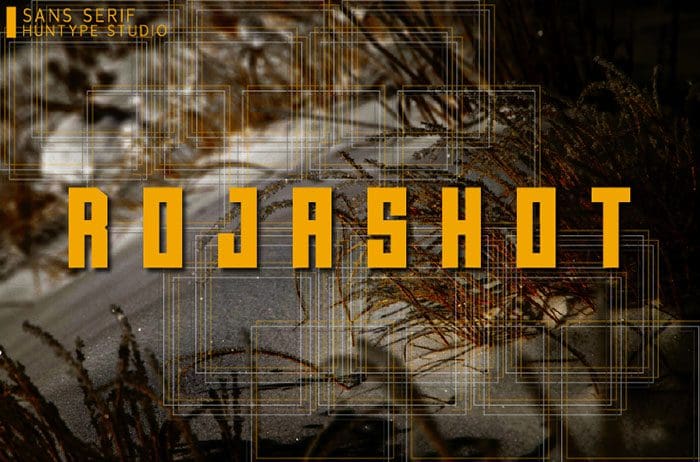
Rojashot is a powerful sans serif font. It maintains its classy calligraphic influences while feeling contemporary and fresh. This versatility will appeal to a wide range of crafty ideas, from letterheads and titles to stationery. Thanks to Mas Anis for sharing this font! Take a look at this portfolio for more of his stunning fonts.
Designed By : Mas Anis